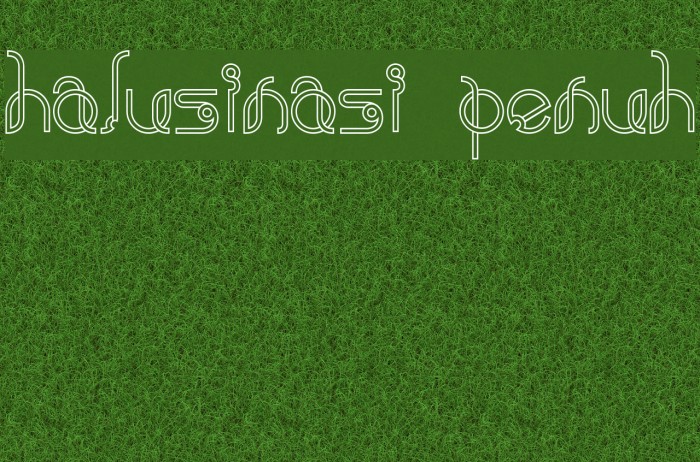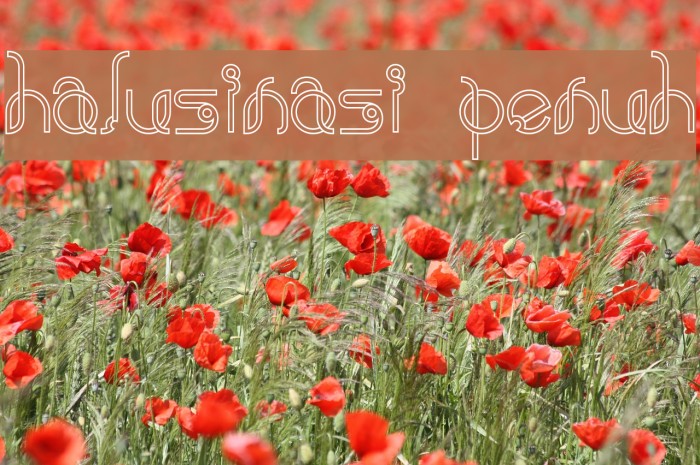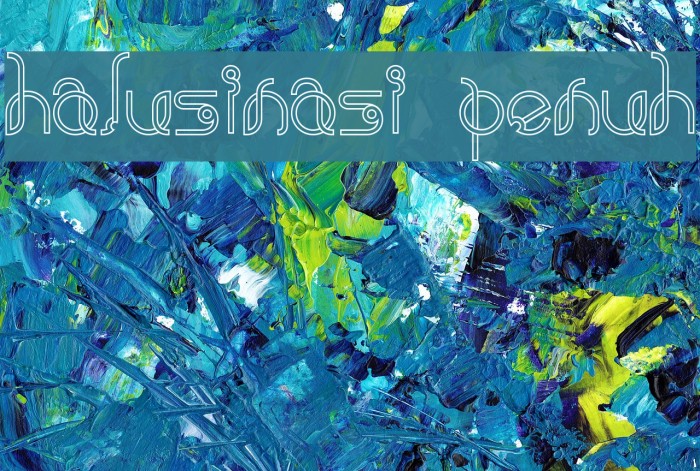
halusinasi penuh Font
This font features a unique and intricate design with a futuristic and geometric style. Each character is composed of continuous lines that form loops and curves, creating a sense of movement and fluidity. The uppercase letters are bold and striking, with a consistent height and width, while the lowercase letters maintain the same design principles but with a slightly more playful and whimsical appearance. The numbers and special characters follow the same aesthetic, ensuring a cohesive look across all elements. This font's distinct style makes it stand out, offering a modern and artistic appeal.
A futuristic and geometric font with continuous line designs and a modern aesthetic.
- Proposed Projects: Ideal for branding projects, modern art posters, futuristic designs, and digital media.
- Use Case: Logos, Posters, Digital Media